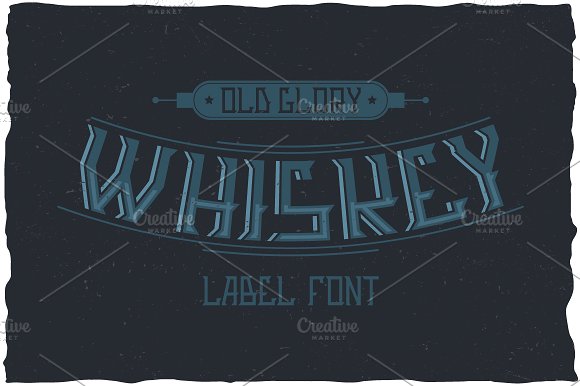
Whiskey Glory Vintage Label Typeface
Here is a classic look label typeface named “WhiskeyGlory”. It’s made in vintage label style. Font is perfect for any labels design.